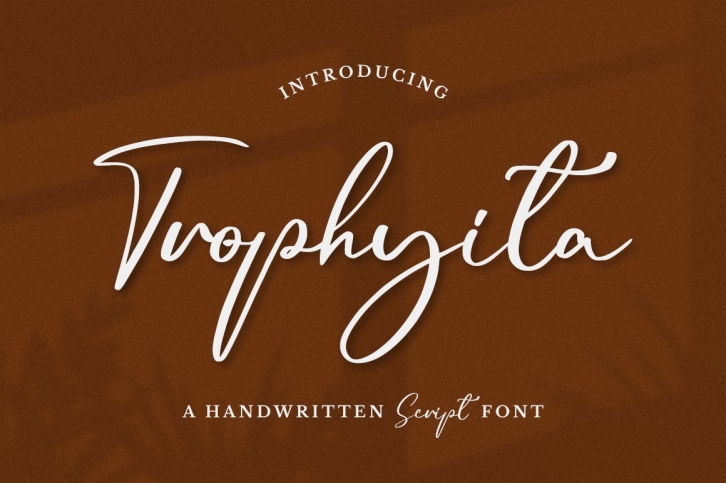
Trophyita is a trendy and unique font with an authentic style. It was designed by rudhisasmito and it's a great choice for creative people who need such a font. It was released on February 2, 2021 and the file size is 13.27 MB. Trophyita will add an organic vibe to any design idea!